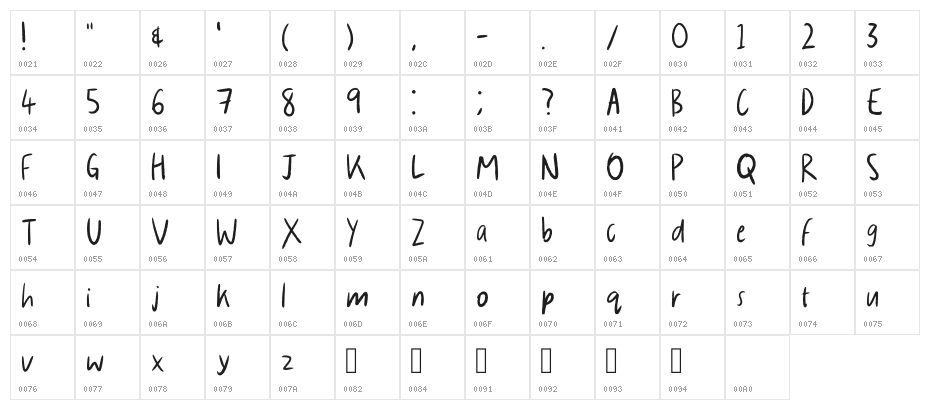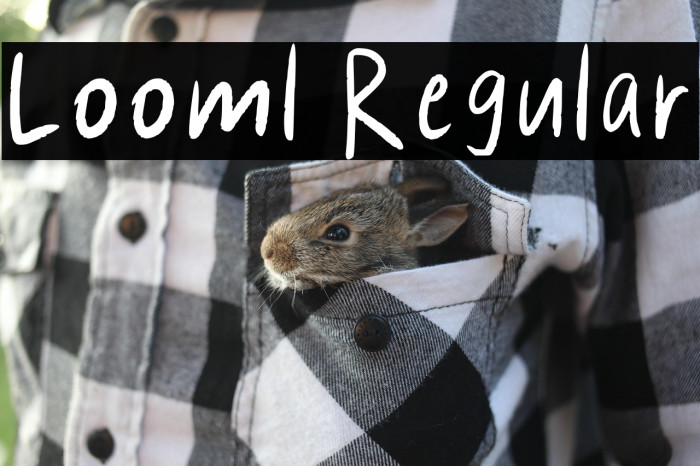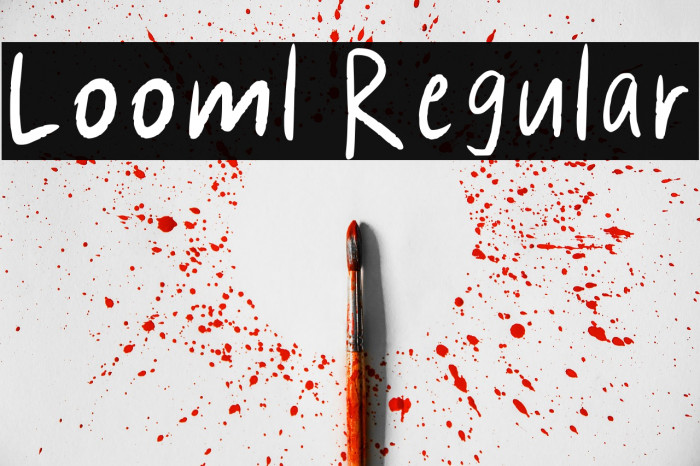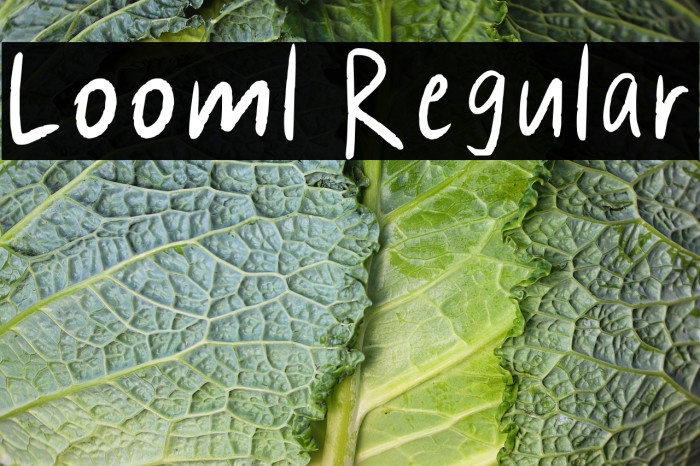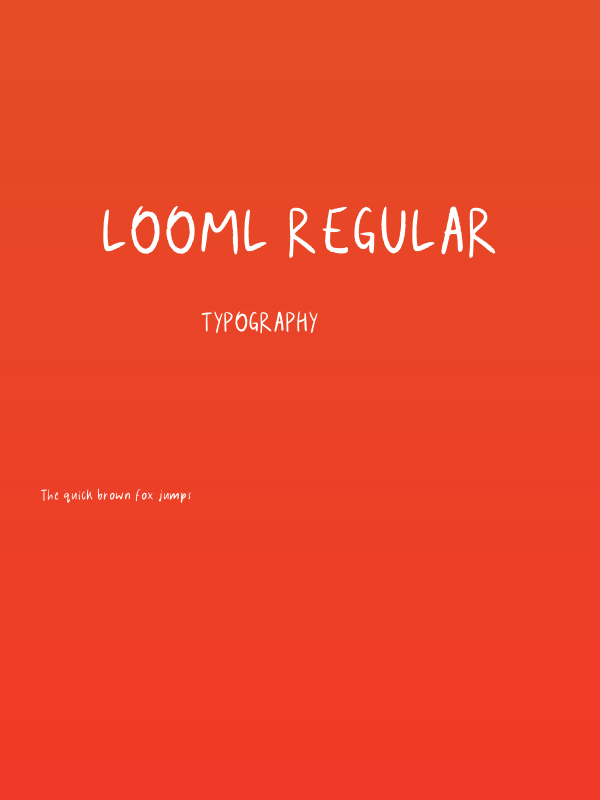
Looml Regular Font
Looml Regular Description
This font exudes a casual and handwritten style, characterized by its organic and fluid letterforms. The strokes are uneven, adding a personal and informal touch to the text. Each character appears as if it were drawn by hand, with slight variations that enhance its authenticity. The uppercase and lowercase letters maintain a consistent style, while the numerals and special characters blend seamlessly into the overall design. This font is perfect for projects that require a personal, approachable, and friendly aesthetic.
| Overall Style | Casual, Informal |
| Use Case | Headlines, Informal text, Personal projects |
| Proposed Projects | Ideal for personal invitations, greeting cards, casual branding, and social media graphics. |